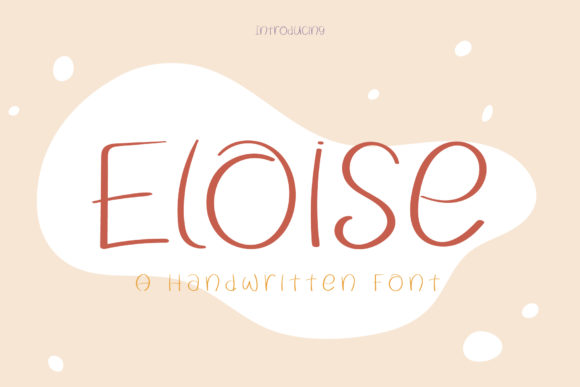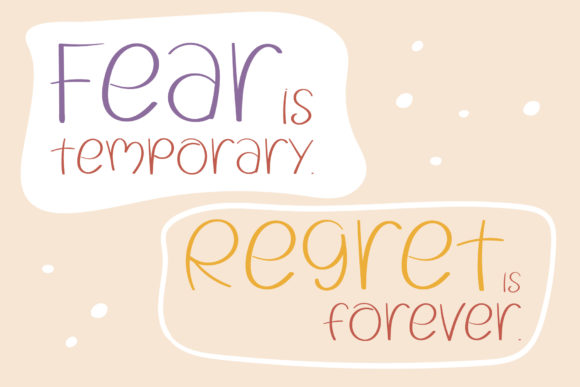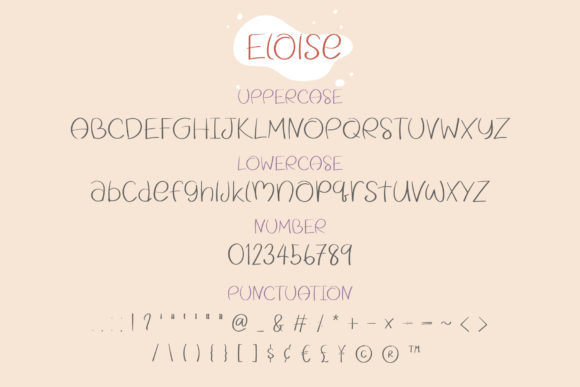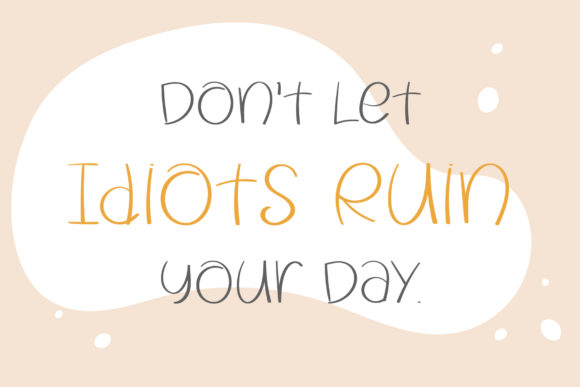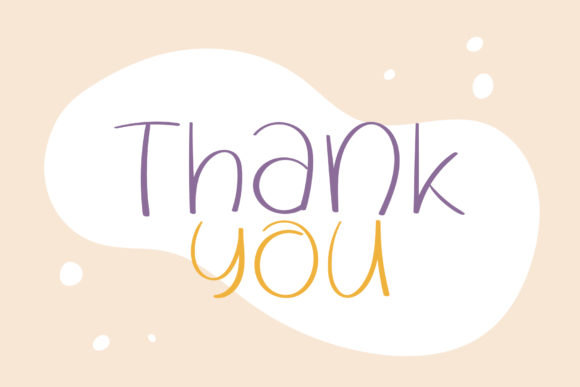
Eloise Handwritten Font
About Eloise Handwritten Font
Eloise is a joyful handwritten font. Its casual charm makes it appear wonderfully down-to-earth, readable and, ultimately, incredibly versatile. Eloise will look outstanding in any context, whether it’s being used on busy backgrounds or as a standalone headline!